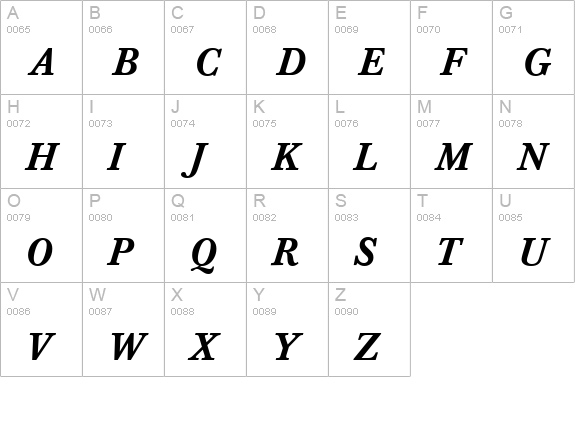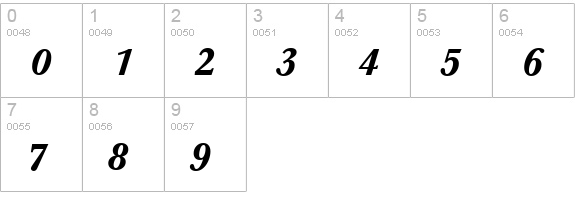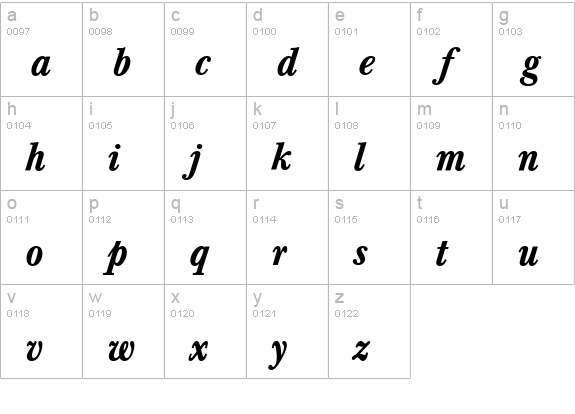
Baskerville-BoldItalic Font Details
Baskerville-BoldItalic font exudes a sense of sophistication and elegance with its bold and italicized design. The sharp, clean lines and distinct serifs give this font a timeless appeal that is perfect for conveying a sense of refinement and professionalism. The bold italic style adds a touch of flair and emphasis, making it ideal for headers, titles, and other design elements that need to stand out. What's even better is that Baskerville-BoldItalic font is available for free download at FontsMarket.com. This means you can easily access this premium font without any cost, making it a valuable addition to your design toolkit. Whether you're working on a project that requires a touch of class or simply want to elevate your typography game, Baskerville-BoldItalic font is a versatile and stylish choice that won't break the bank. Download it today and see how it can enhance your designs with its timeless appeal and bold elegance.